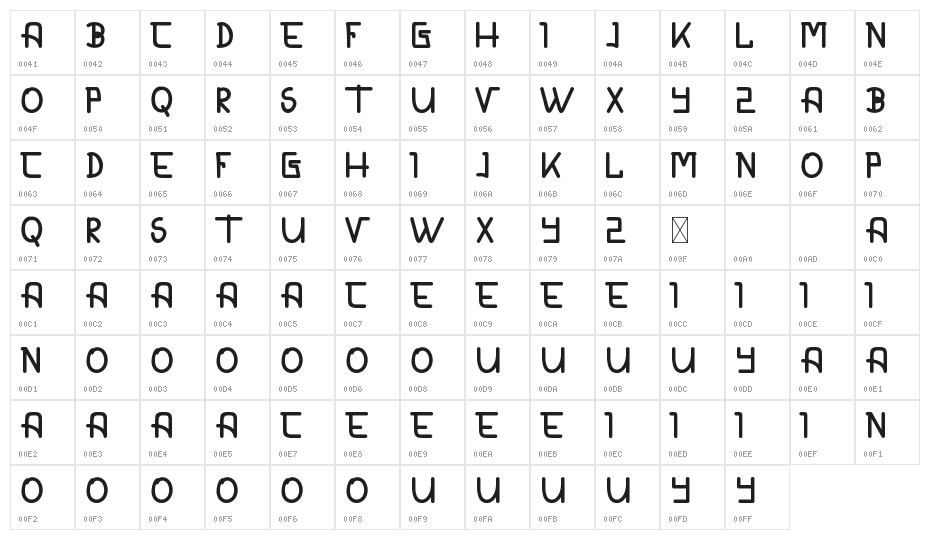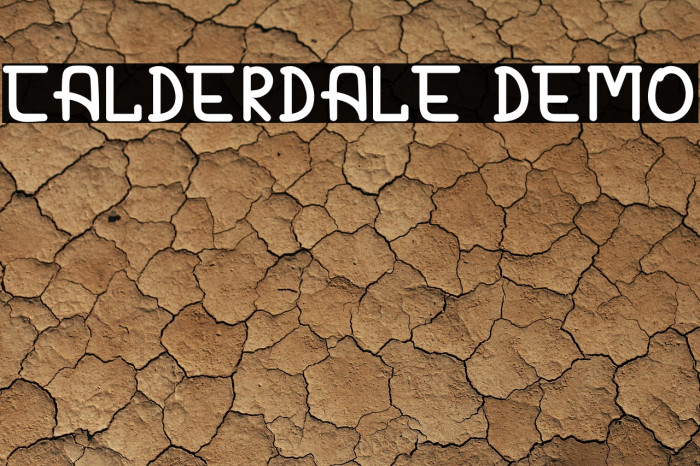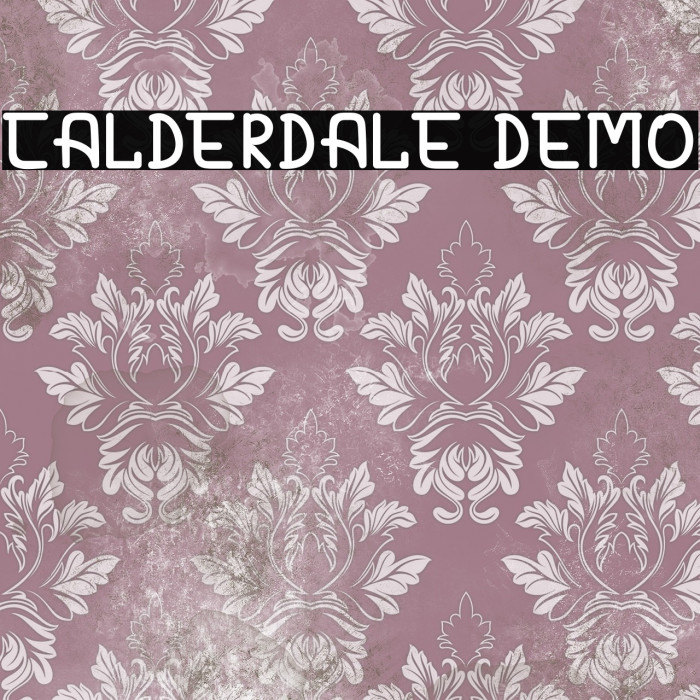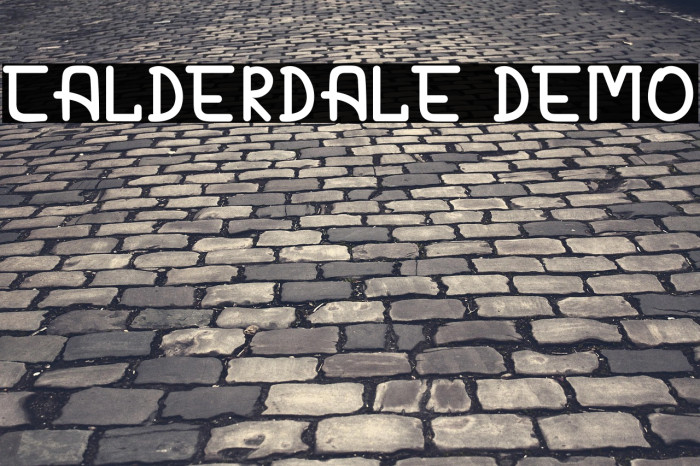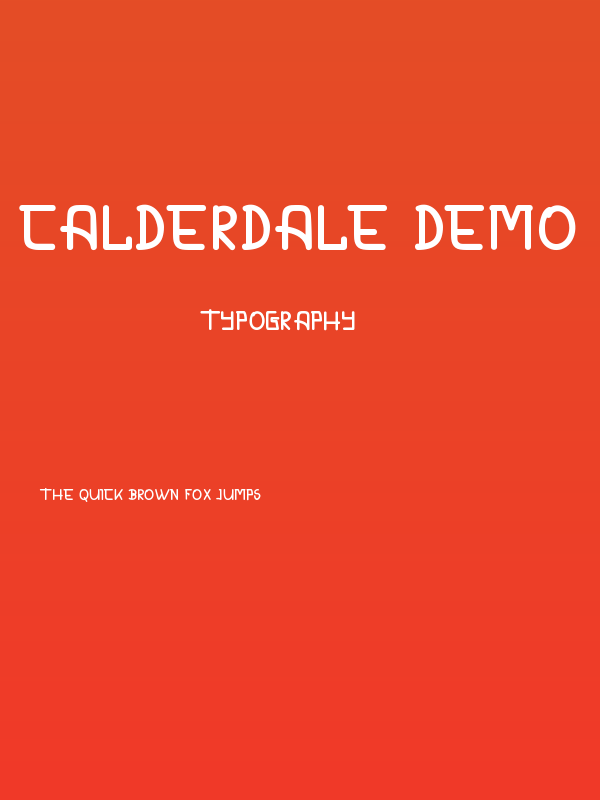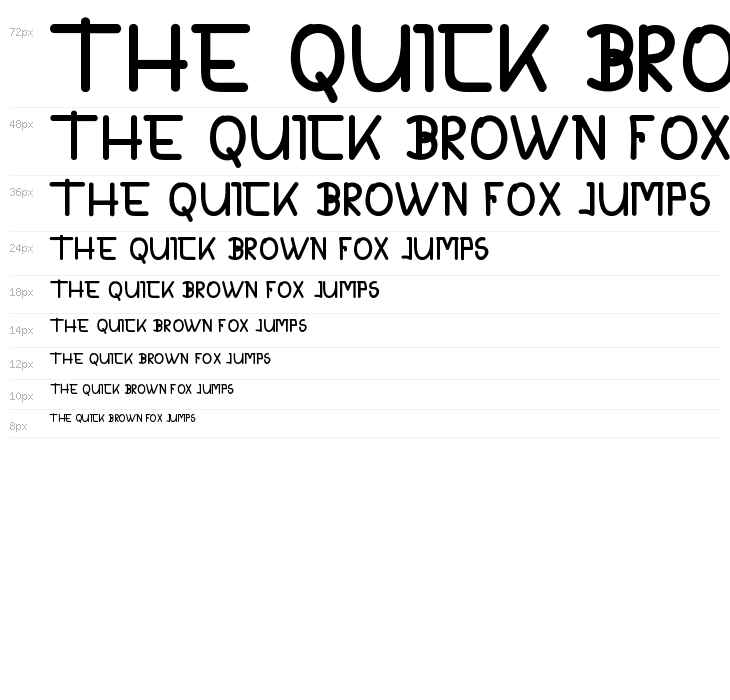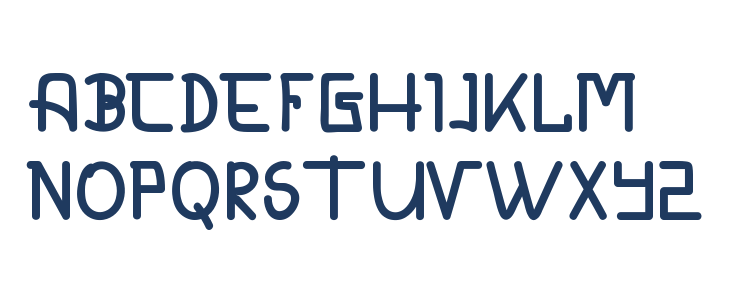
CALDERDALE DEMO Font
CALDERDALE DEMO Description
This font features a unique and playful design with rounded edges and a slightly irregular structure, giving it a hand-drawn appearance. The characters are bold and have a consistent stroke width, which adds to their legibility and charm. The uppercase letters are distinct with a quirky twist, while the lowercase letters maintain a cohesive style. The numerals and special characters follow the same playful aesthetic, making the font suitable for creative and informal applications. Its overall style is modern with a touch of whimsy, making it stand out in various design contexts.
| Overall Style | Modern, Whimsical |
| Proposed Projects | Ideal for children's books, playful branding, creative posters, and informal invitations. |